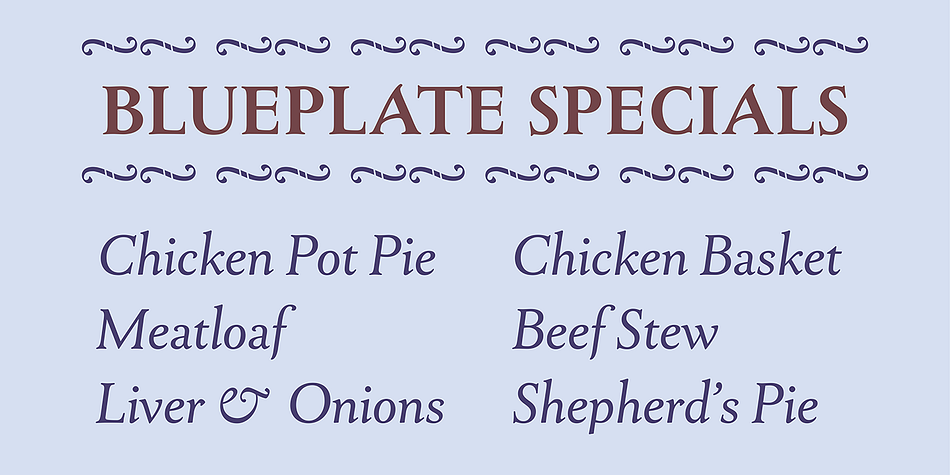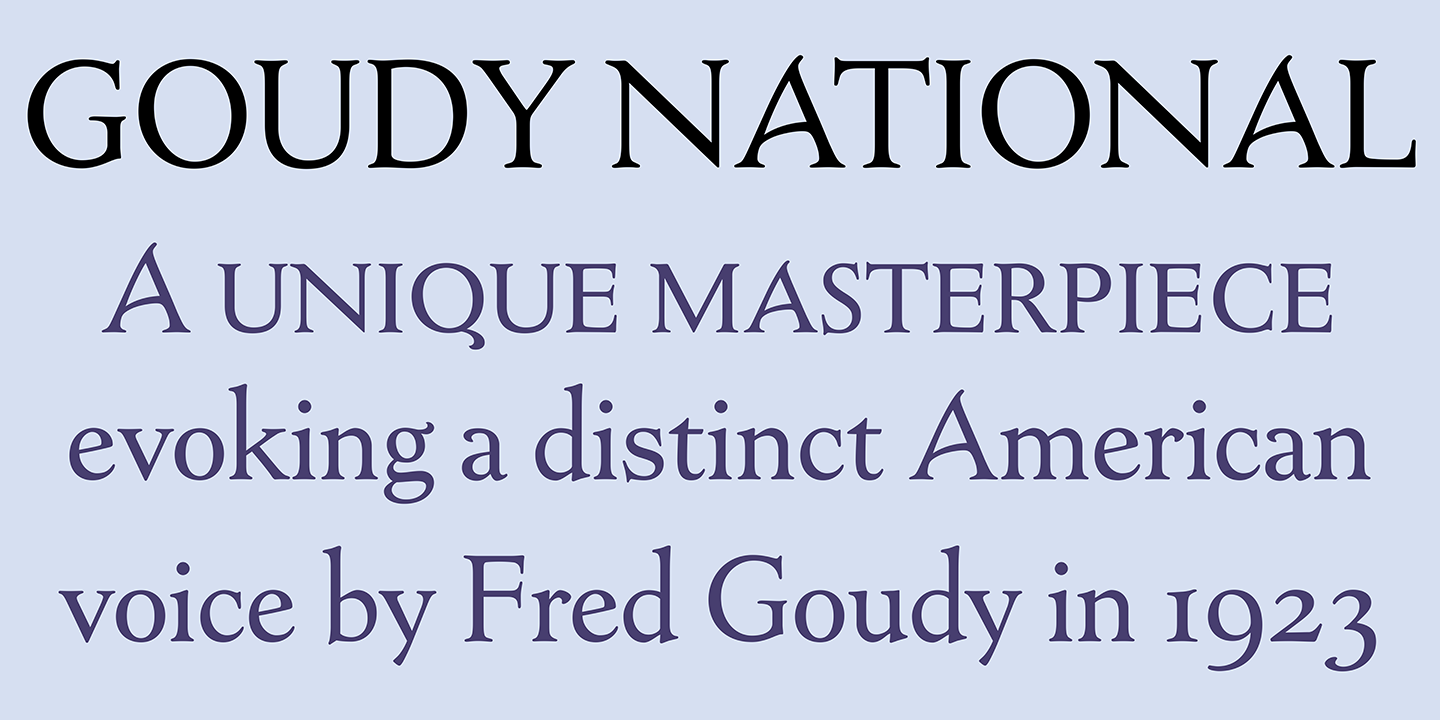
Designed by Frederic W. Goudy and Steve Matteson, Goudy National is a serif font family. This typeface has six styles and was published by Matteson Typographics.
Frederic Goudy designed National Old Style Roman (Goudy National) in 1916. It is loosely based on a logo he lettered for the National Biscuit Company in 1901. Steve Matteson expanded on Goudy’s original by designing a bold, semibold and matching italics. While much of Goudy’s work is strongly influenced by Venetian types of the 15th and 16th centuries – this design has a truly American quality about it.
Goudy National is ideally suited for monumental effects in headlines and captions. With it’s unique ‘Americana’ feel it can be used in publications and packaging.
Foundry | Matteson Typographics |
Designers | Frederic W. Goudy, Steve Matteson |